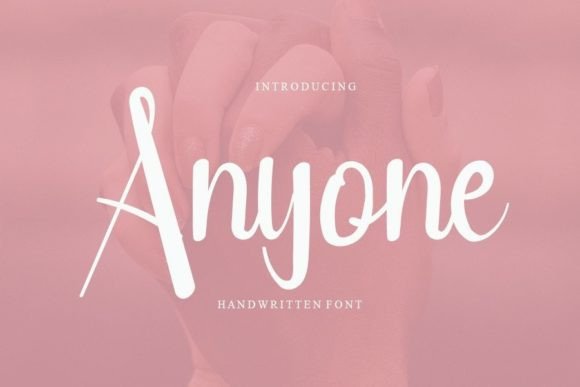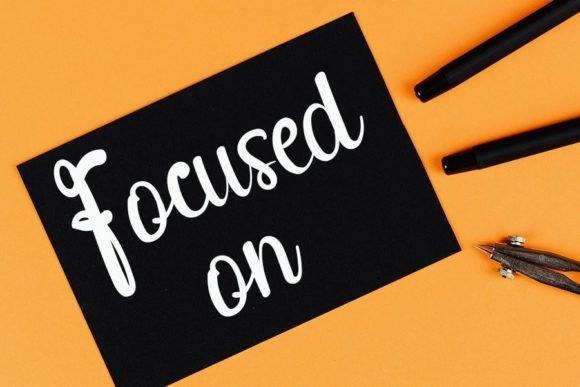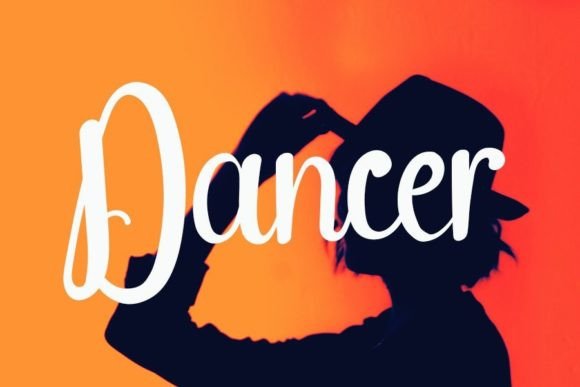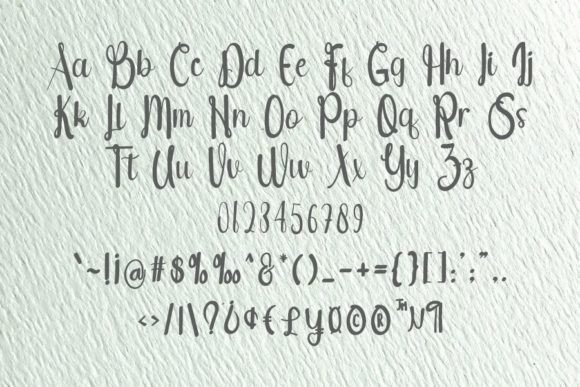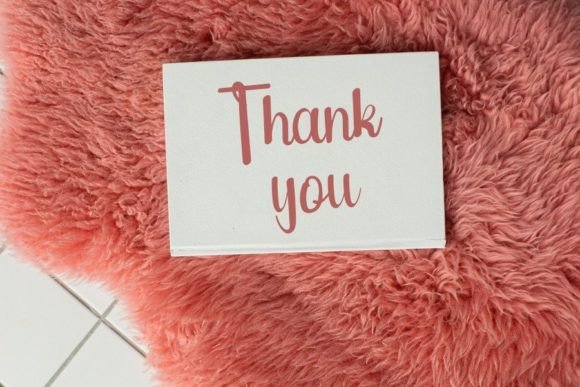
Anyone Font
About Anyone Font
“Anyone” is a beautiful and versatile handwritten font crafted to bring a unique feel and stunning impact to your creative projects. With its distinct style, this font adds a lovely spark, making it a valuable asset for a variety of design applications.
The versatility of “Anyone” allows it to seamlessly adapt to different creative projects. Whether you’re working on branding materials, invitations, social media posts, or any other design, this font is designed to add a touch of beauty and uniqueness.
Imagine using “Anyone” on a poster, where its stunning impact enhances the visual appeal and captures attention. Picture it on a greeting card, adding a lovely spark to your heartfelt messages. The font’s versatility makes it suitable for a wide range of creative ideas, providing a charming and distinctive touch.
As you incorporate “Anyone” into your design projects, let its beautiful and versatile handwritten style be the key element that elevates your work. Whether you’re creating logos, branding materials, or any other design, “Anyone” invites you to infuse your projects with its stunning impact, ensuring that your creations stand out with a touch of beauty and uniqueness.